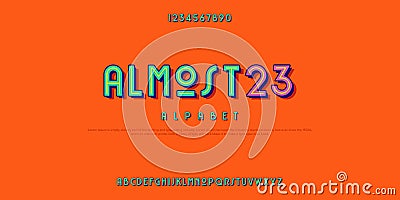
Tech Typeface Font Custom Sans Serif With A Line In The Center Text. Vector Illustration
Tech Typeface font custom sans serif with a line in the center text. #206008596